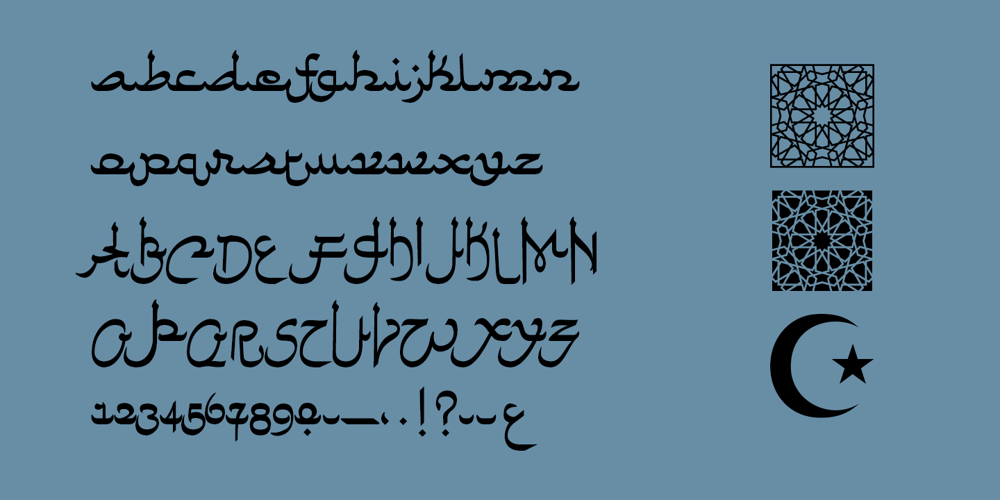
Faux Arabic
Faux Arabic font
Faux Arabic Font Family was designed by Roger Vershen and published by Page Studio Graphics. Faux Arabic contains 1 styles and family package options. Based on Arabic calligraphic script, this simulation font includes upper and lower case Western alphabets, numerals, basic punctuation and several ligatures, as well as the Islamic crescent symbol and a typical Arabic geometric design.